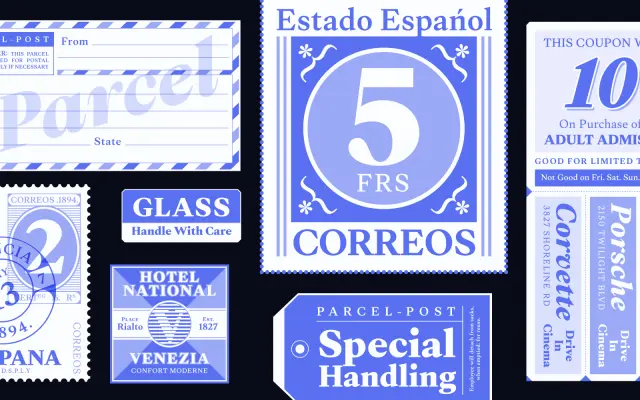
A six-weight serif family with variable font support, designed for editorial and luxury-adjacent contexts such as stationery, hospitality branding and long-form print.
Frasa offers six weights from Regular to Black, each with matching italics, alongside variable upright and italic versions that allow continuous weight interpolation. The specimen leans heavily into grand hotel aesthetics, positioning the typeface for stationery, hospitality design and editorial use. Latin Extended coverage is broad, supporting a wide range of European languages.
The specimen imagery and editorial tone suggest a refined serif with classical proportions suited to long-form text and luxury branding, consistent with transitional serif classification.